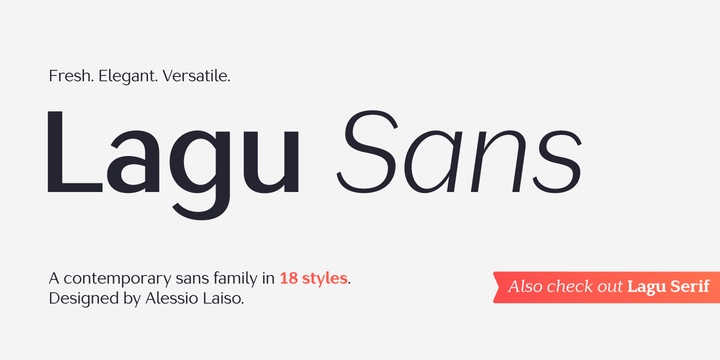
Lagu Sans Font
Lagu Sans Font is perfect for modern branding projects, website headers, logo designs, magazine layouts, business cards, promotional materials, social media graphics, book covers, poster designs, and contemporary advertising campaigns.
What makes Lagu Sans Font exciting is its clean geometric structure combined with subtle humanist touches that create exceptional readability across all media formats. The font's balanced proportions and carefully crafted letterforms deliver both professional sophistication and contemporary appeal, making it an ideal choice for brands seeking to establish a strong visual identity in today's competitive marketplace.
Lagu Sans Font family includes multiple weights ranging from Light to Bold, along with matching italic variations, providing designers with comprehensive typographic flexibility for hierarchical text arrangements and diverse design applications.
This versatile typeface represents the perfect fusion of minimalist aesthetics and functional design principles. Lagu Sans Font Free Download offers designers an exceptional opportunity to enhance their creative projects with a font that seamlessly adapts to both digital and print environments. Whether you're developing corporate communications, crafting editorial layouts, or designing user interfaces, this font family delivers consistent performance and visual appeal.
The carefully engineered spacing and kerning ensure optimal legibility at any size, while the font's neutral character makes it suitable for international markets and multilingual projects. The comprehensive character set supports extended Latin alphabets, making it valuable for global design applications.
Lagu Sans Font stands out in the crowded sans-serif category through its distinctive personality that never compromises functionality. The font's technical excellence combined with its aesthetic refinement creates endless possibilities for creative expression while maintaining the professional standards required in commercial design work.